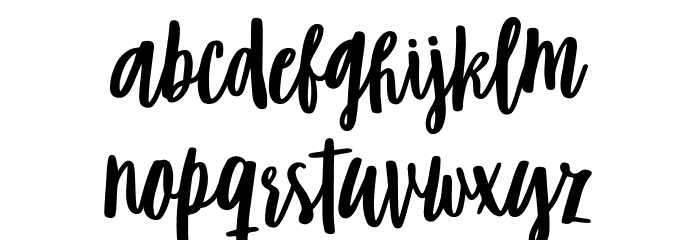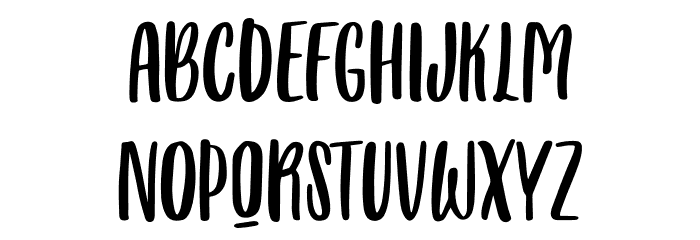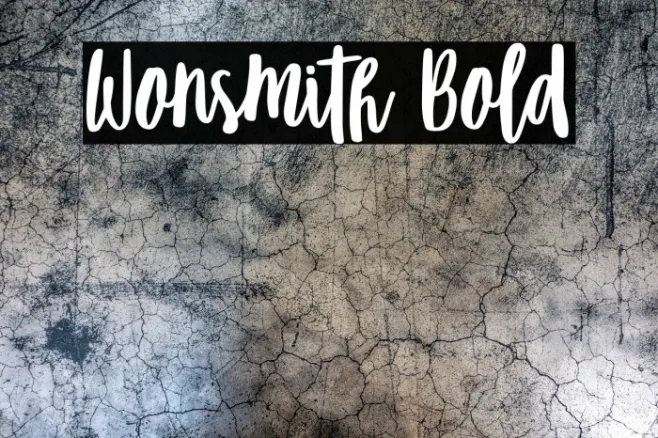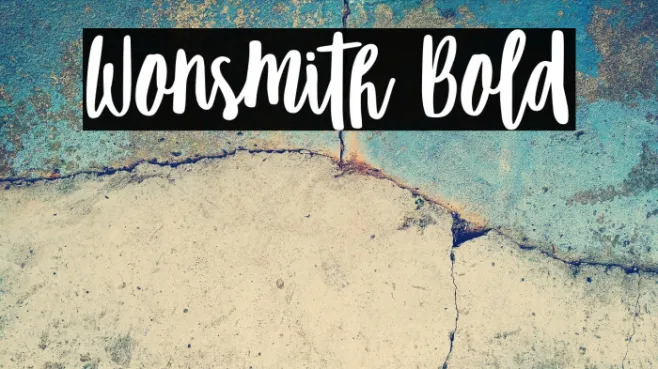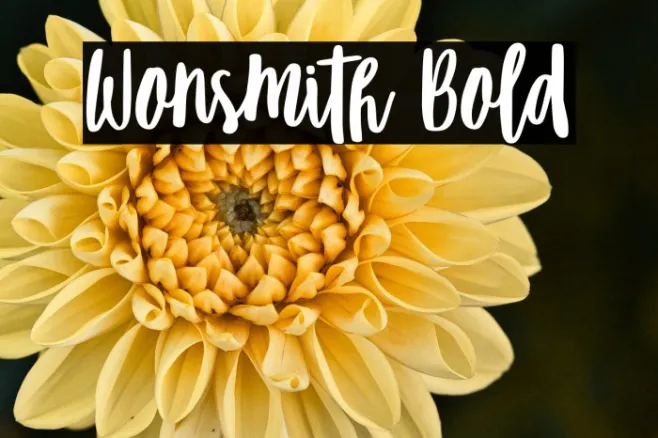
Wonsmith Bold Font
This font features a bold and expressive handwritten style, characterized by its fluid and dynamic strokes. The letters are slightly slanted, giving a sense of movement and energy. The uppercase and lowercase letters maintain a consistent style, with rounded edges and a playful appearance. The font's thickness varies, adding to its lively and informal feel. It is well-suited for creative projects that require a personal touch, such as invitations, greeting cards, and branding materials. The overall look is modern and approachable, making it versatile for various design applications.
A bold, expressive handwritten font with dynamic strokes and a playful style.
- Font: Wonsmith Bold
- Proposed Projects: Ideal for invitations, greeting cards, branding, and creative projects needing a personal touch.
- Category: Handwritten
- Use Case: Headlines, Logos, Creative projects